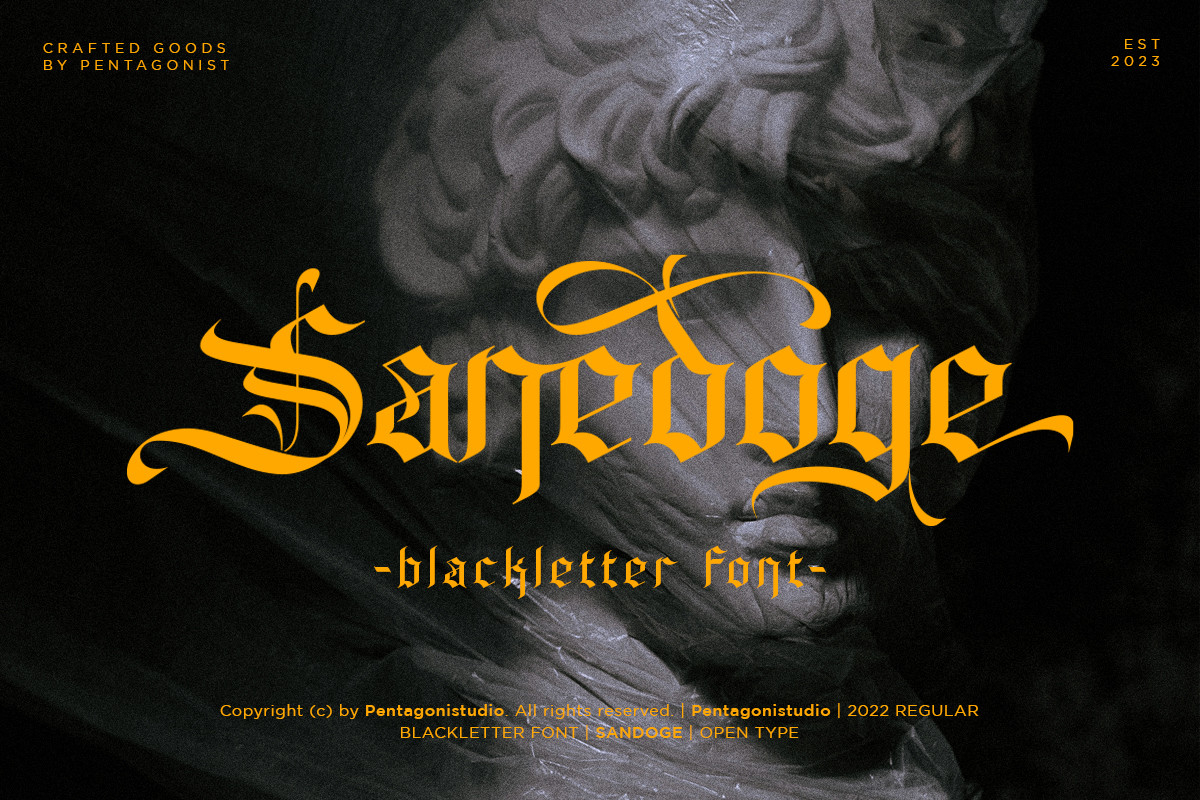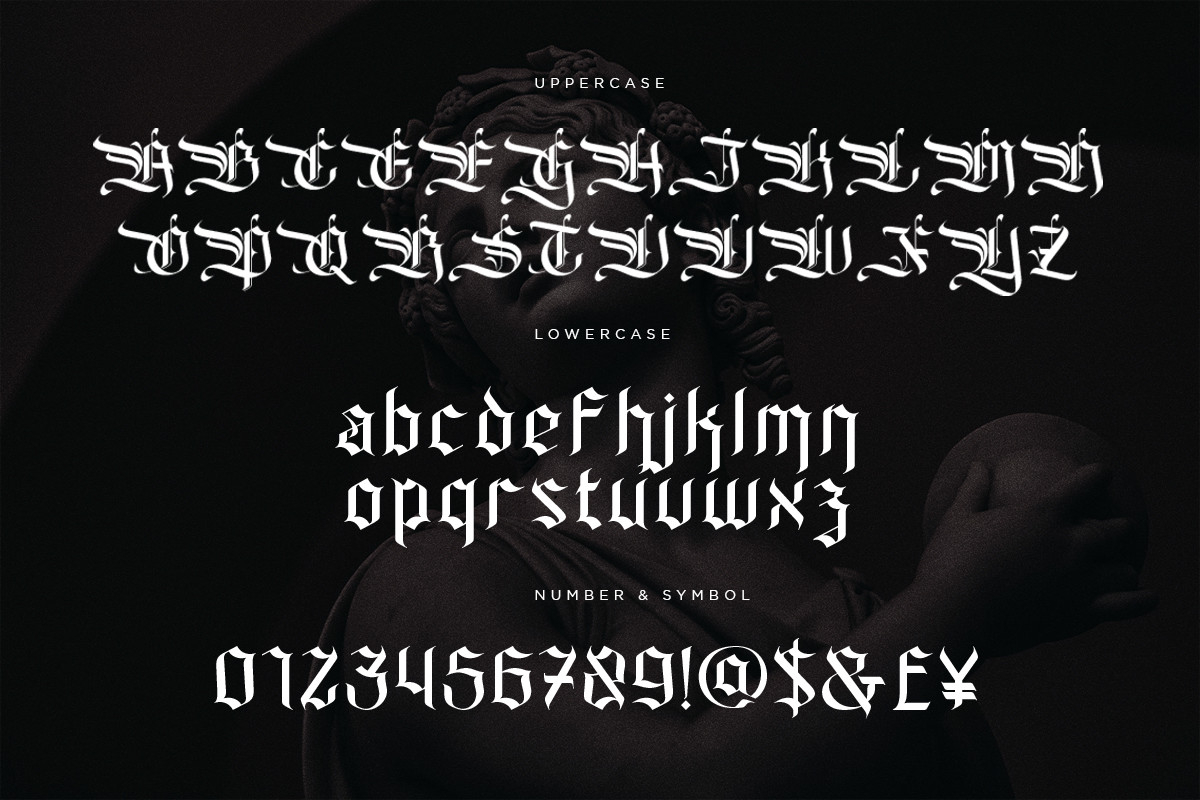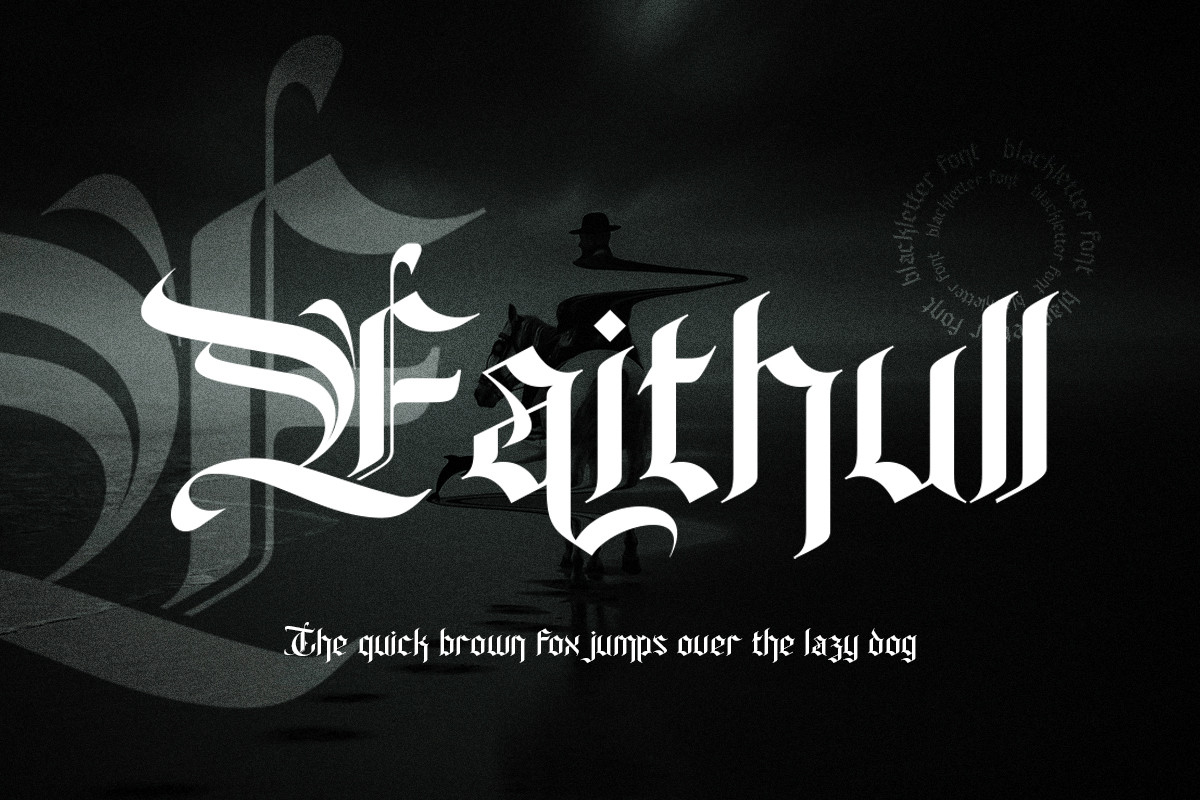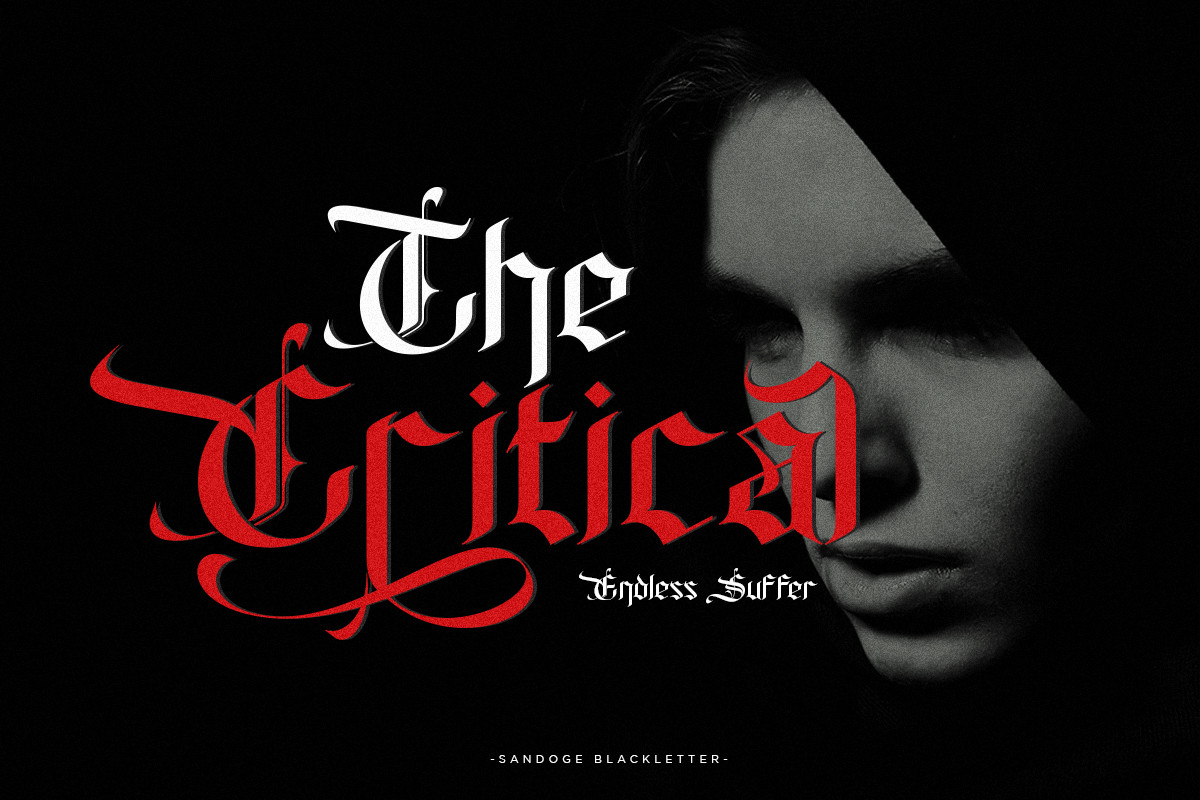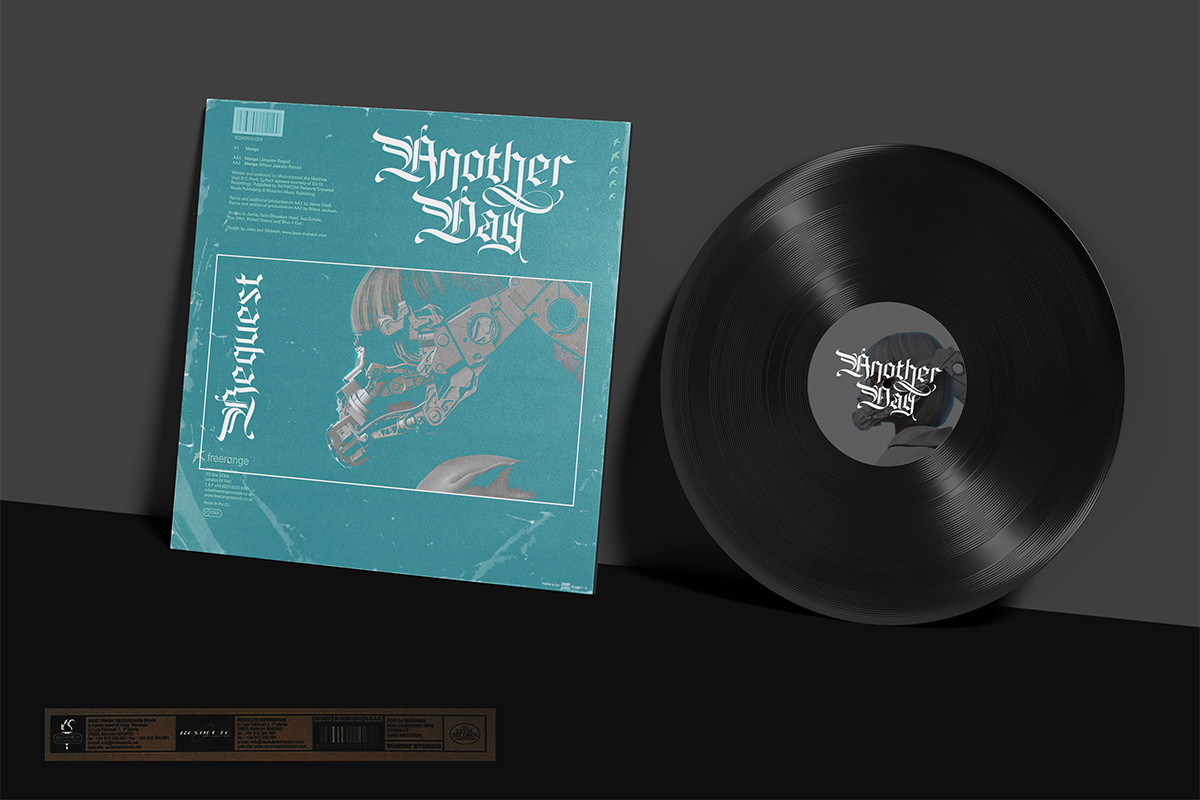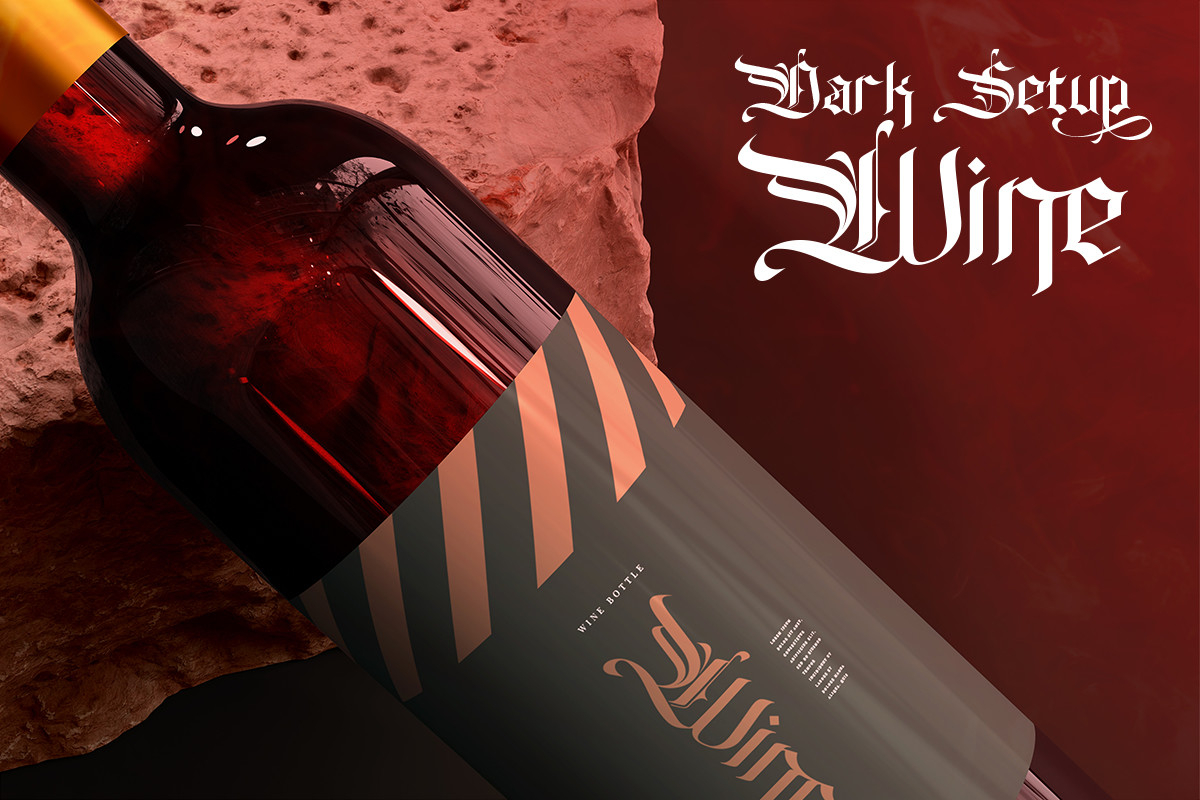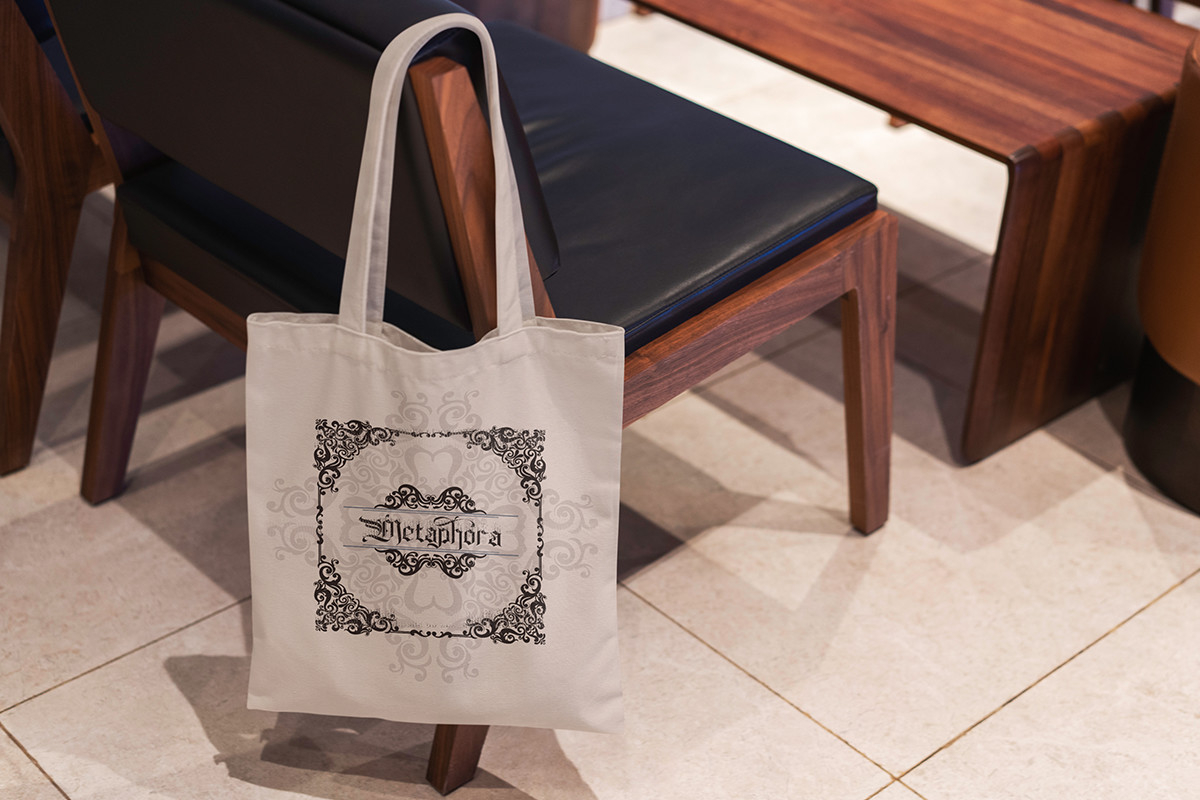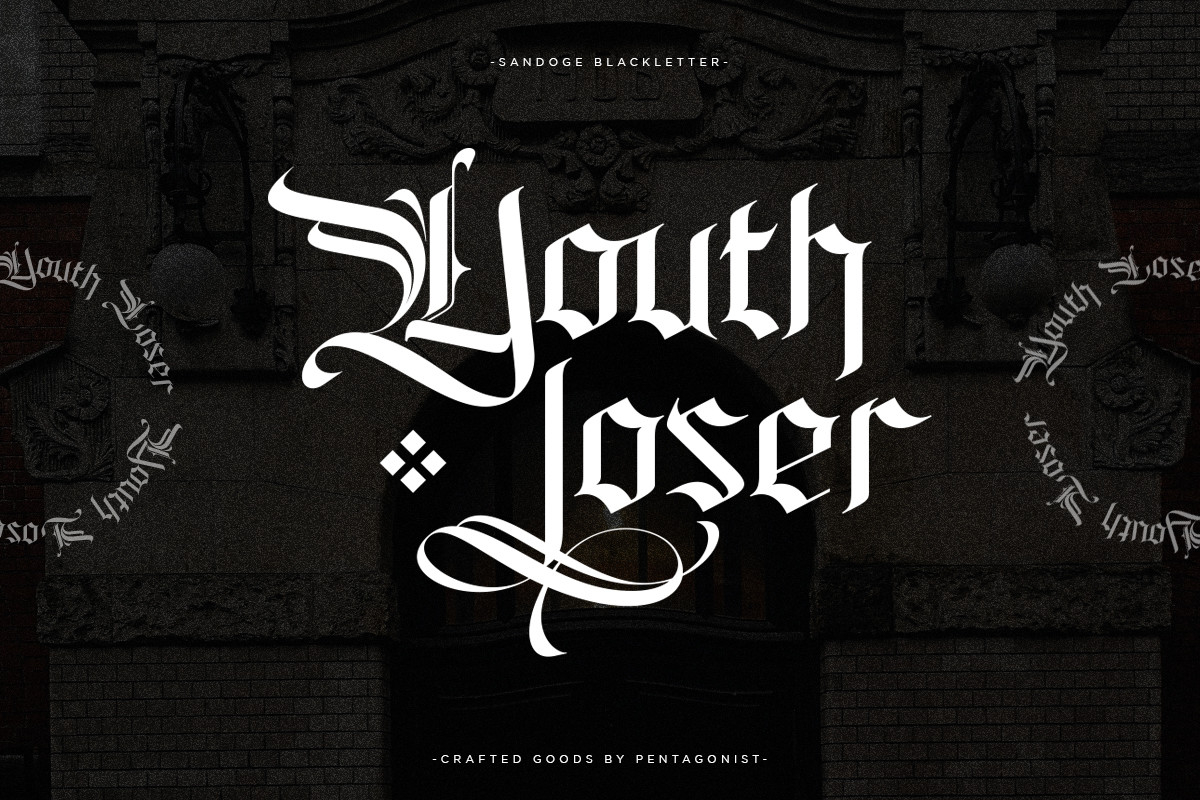
Sandoge Font
About Sandoge Font
Sandoge Is A Vintage Display Typeface Inspired By Blackletter Characters. Add it confidently to your projects, and you will love the results.